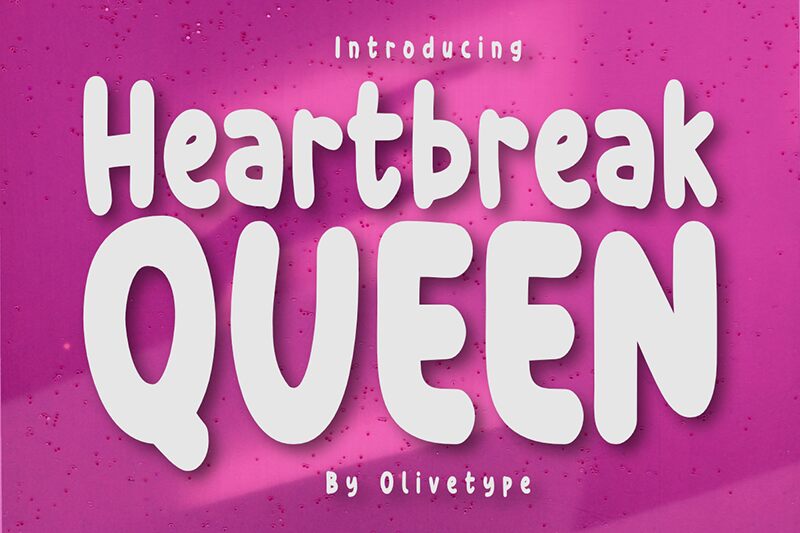
Heartbreak Queen font is a sweet cartoon display typeface by Olivetype with condensed letters showing off retro vibes. The casual charm of the design, its smooth flow, and modern aesthetic make it friendly yet professional at the same time. The different-sized elements of Heartbreak Queen give it a noticeable sense of rhythm and originality that is simply captivating.